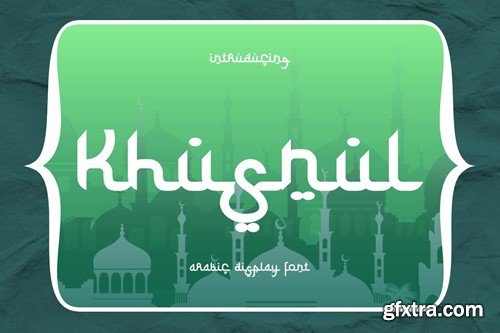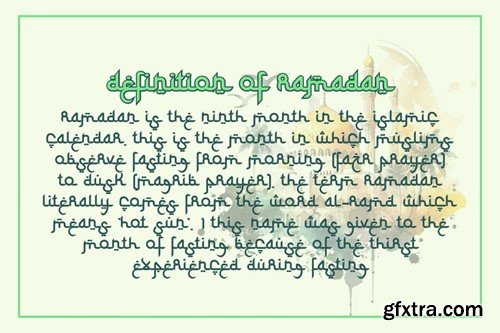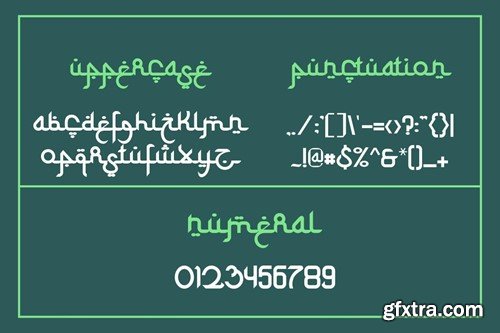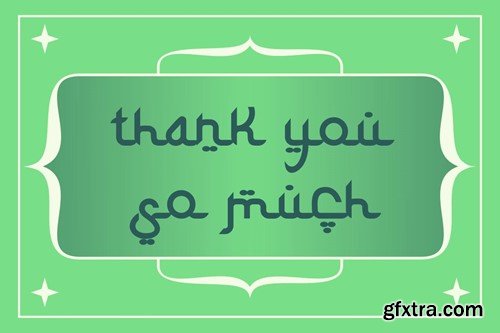
Khusnul Font Style Typeface M6Y6DPK
Khusnul Font Style Typeface
Proudly present our new product Khusnul Font Style Typeface
• Khusnul Font Style Typeface is a modern and authentic font. *
• Perfect for both professional and branding needs of a product. *
• This font is suitable for any branding project like quotes, logo, blog header, poster, banding, letter, invitation, stationery, *
• etc... Designed as a versatile and flexible that can be used on a range of projects and mediums. *
• outstanding in a wide range of contexts. *